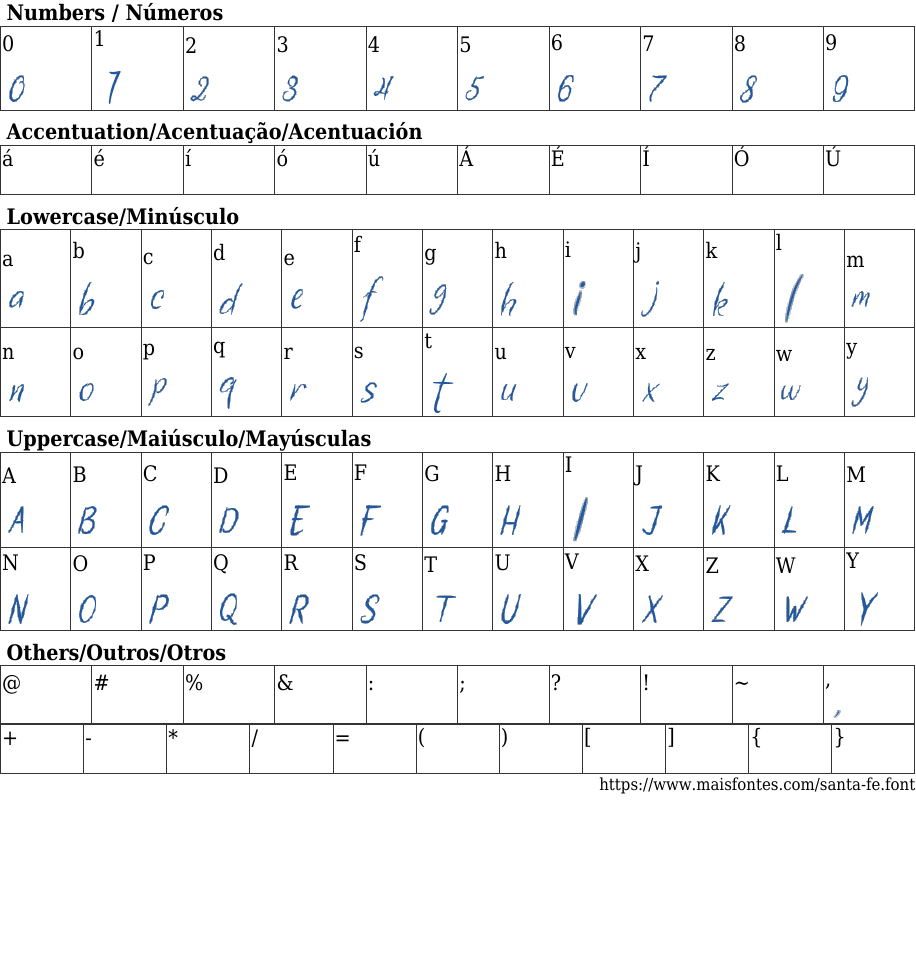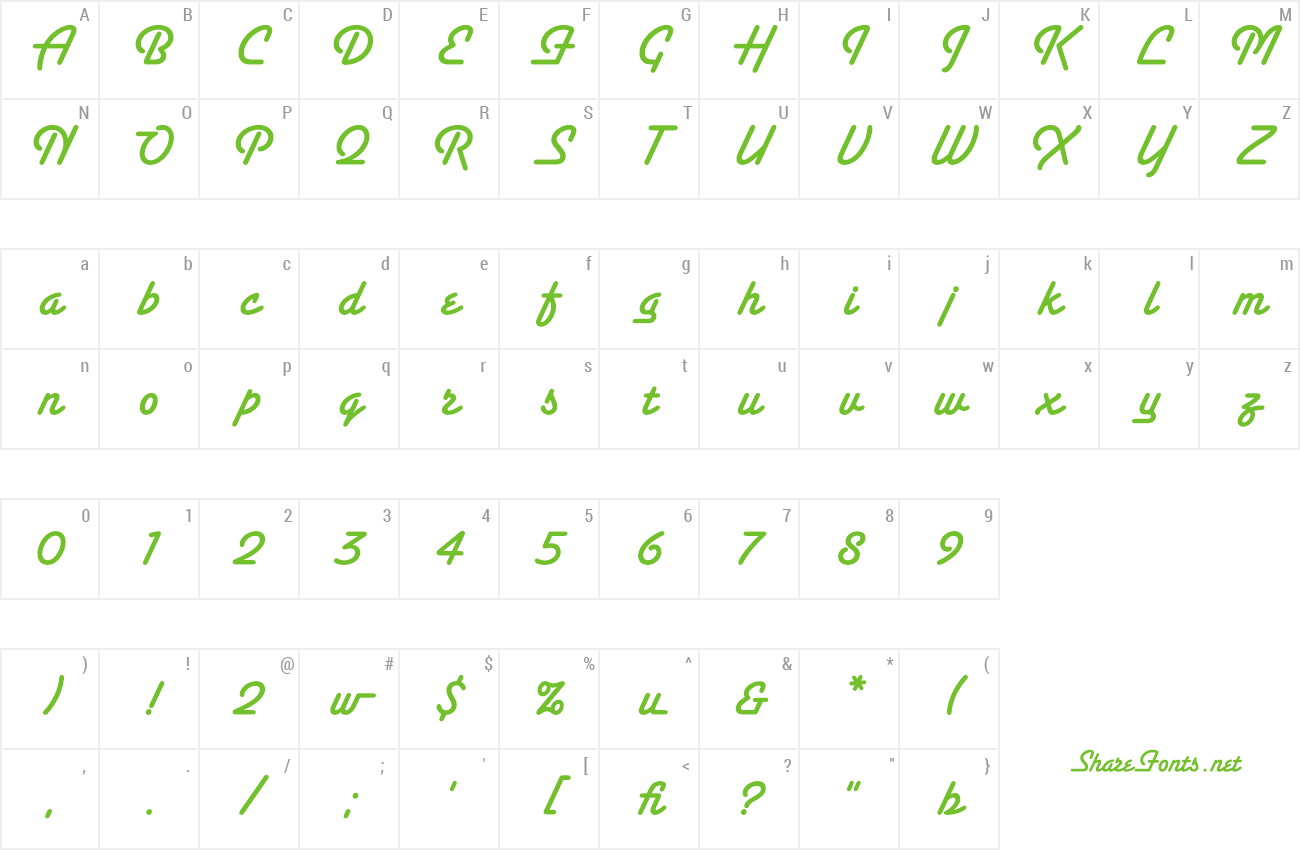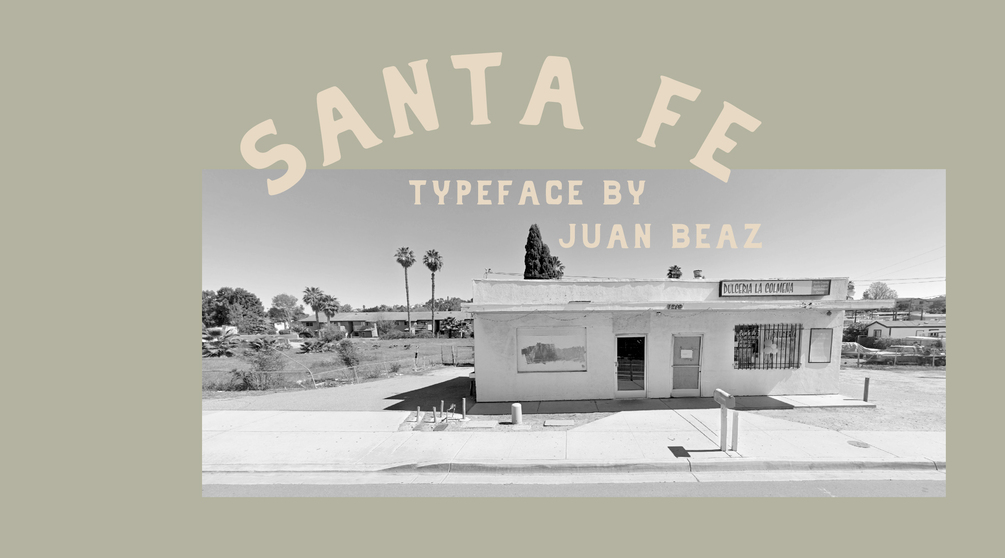
Santa Fe Font - ️ this font has been. Santa fe is a free font for commercial. Rounded corners pair with elegant forms to give santa fe a flowing, cheerful look. Santa fe font download is available free from fontget. Download and install the santafe font for free from ffonts.net.
Rounded corners pair with elegant forms to give santa fe a flowing, cheerful look. Santa fe font download is available free from fontget. ️ this font has been. Santa fe is a free font for commercial. Download and install the santafe font for free from ffonts.net.
Santa fe is a free font for commercial. ️ this font has been. Santa fe font download is available free from fontget. Download and install the santafe font for free from ffonts.net. Rounded corners pair with elegant forms to give santa fe a flowing, cheerful look.
Santa fe is a free font for commercial. Santa fe font download is available free from fontget. ️ this font has been. Download and install the santafe font for free from ffonts.net. Rounded corners pair with elegant forms to give santa fe a flowing, cheerful look.
Santa fe is a free font for commercial. Santa fe font download is available free from fontget. Download and install the santafe font for free from ffonts.net. ️ this font has been. Rounded corners pair with elegant forms to give santa fe a flowing, cheerful look.
Santa fe font download is available free from fontget. Santa fe is a free font for commercial. Rounded corners pair with elegant forms to give santa fe a flowing, cheerful look. ️ this font has been. Download and install the santafe font for free from ffonts.net.
Santa Fe Typeface
Rounded corners pair with elegant forms to give santa fe a flowing, cheerful look. ️ this font has been. Download and install the santafe font for free from ffonts.net. Santa fe font download is available free from fontget. Santa fe is a free font for commercial.
Rounded corners pair with elegant forms to give santa fe a flowing, cheerful look. Download and install the santafe font for free from ffonts.net. ️ this font has been. Santa fe font download is available free from fontget. Santa fe is a free font for commercial.
Download and install the santafe font for free from ffonts.net. ️ this font has been. Santa fe font download is available free from fontget. Santa fe is a free font for commercial. Rounded corners pair with elegant forms to give santa fe a flowing, cheerful look.
Rounded corners pair with elegant forms to give santa fe a flowing, cheerful look. Santa fe is a free font for commercial. Download and install the santafe font for free from ffonts.net. ️ this font has been. Santa fe font download is available free from fontget.
Download and install the santafe font for free from ffonts.net. Santa fe font download is available free from fontget. ️ this font has been. Rounded corners pair with elegant forms to give santa fe a flowing, cheerful look. Santa fe is a free font for commercial.
Rounded corners pair with elegant forms to give santa fe a flowing, cheerful look. Santa fe font download is available free from fontget. ️ this font has been. Santa fe is a free font for commercial. Download and install the santafe font for free from ffonts.net.
Santa Fe Spring font by Haksen Studio FontRiver
Rounded corners pair with elegant forms to give santa fe a flowing, cheerful look. Santa fe font download is available free from fontget. Download and install the santafe font for free from ffonts.net. Santa fe is a free font for commercial. ️ this font has been.
Download and install the santafe font for free from ffonts.net. Rounded corners pair with elegant forms to give santa fe a flowing, cheerful look. Santa fe font download is available free from fontget. Santa fe is a free font for commercial.